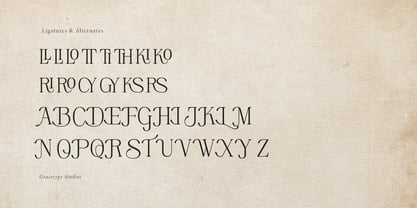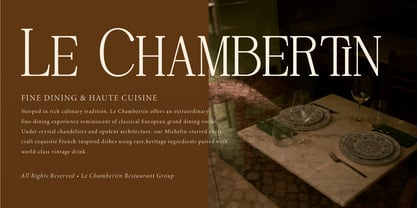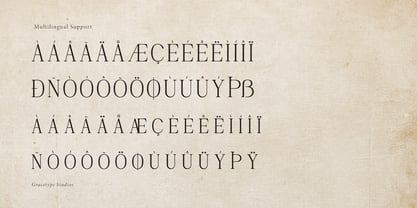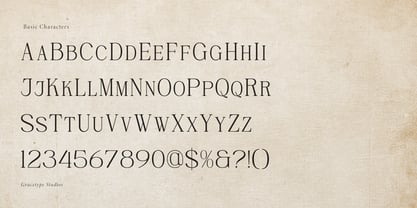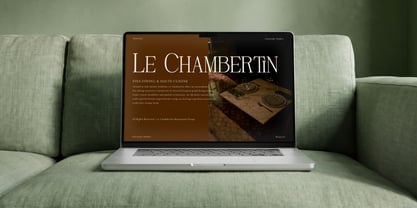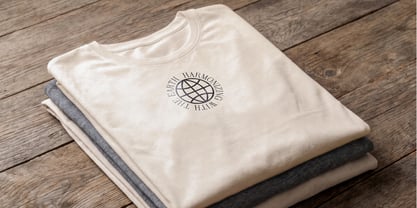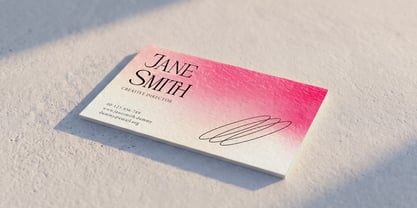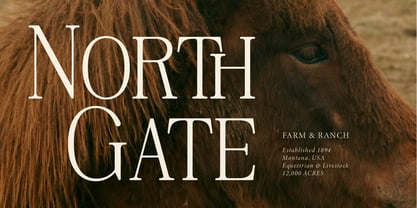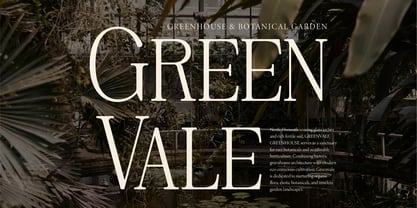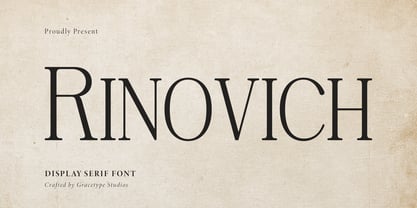
Rinovich
The Rinovich Font Family was designed by Dede Nugraha and published by Tini Fitriani. Rinovich contains 2 styles and family package options. More about this family
Rinovich | Display Serif Font, from Gracetypestudio, suitable for any projects such as: logos, branding projects, homeware designs, product packaging, mugs, quotes, posters, shopping bags, t-shirts, book covers, name card, invitation cards, greeting cards, label, photography, watermark, special events, and all your other lovely projects that need a Serif Font taste.